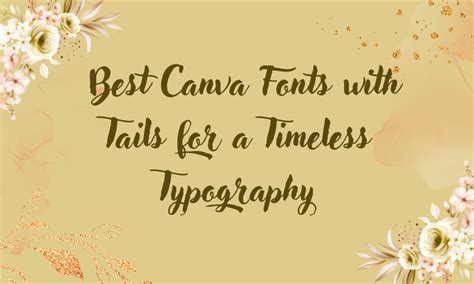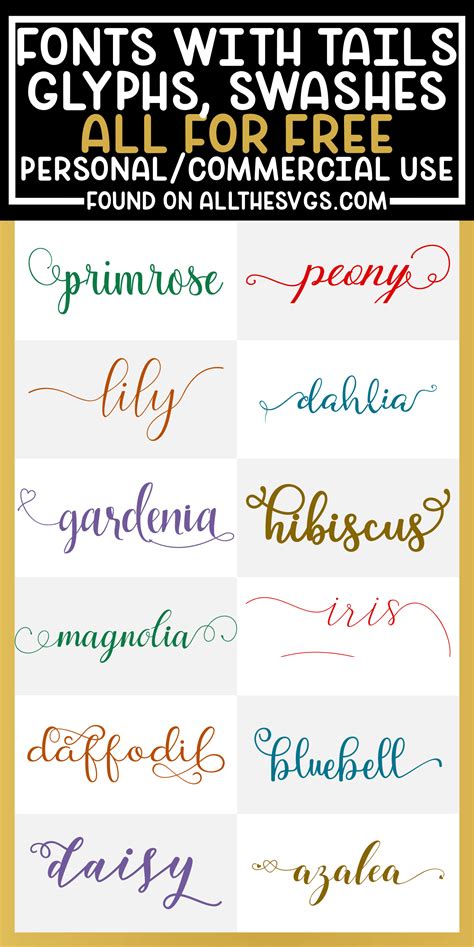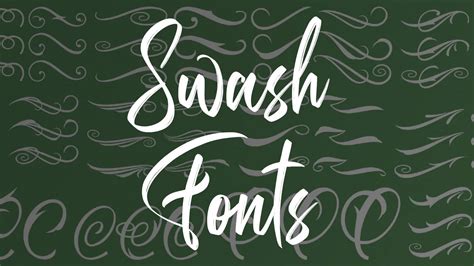
Typography is an art form that can significantly enhance the visual appeal and readability of any design project. One of the most intriguing aspects of typography is the use of fonts with tails. These fonts, characterized by their elegant and flowing strokes, add a touch of sophistication and personality to text. Whether you're designing a logo, creating a website, or crafting a print publication, understanding and utilizing fonts with tails can elevate your work to new heights.
Understanding Fonts With Tails
Fonts with tails, also known as serif fonts, are distinguished by the small lines or strokes that extend from the main strokes of the letters. These tails, or serifs, can vary in style and size, contributing to the overall aesthetic and readability of the text. Serif fonts are often associated with traditional and classic designs, evoking a sense of elegance and timelessness.
There are several types of serif fonts, each with its unique characteristics:
- Old Style Serifs: These fonts have a more traditional and classic appearance, with a slight contrast between thick and thin strokes. Examples include Garamond and Caslon.
- Transitional Serifs: These fonts have a more pronounced contrast between thick and thin strokes, making them highly readable. Examples include Times New Roman and Baskerville.
- Modern Serifs: These fonts feature a high contrast between thick and thin strokes and often have a more geometric appearance. Examples include Bodoni and Didot.
- Slab Serifs: These fonts have thick, block-like serifs and are known for their bold and impactful appearance. Examples include Rockwell and Clarendon.
The Importance of Fonts With Tails in Design
Fonts with tails play a crucial role in design for several reasons. Firstly, they enhance readability, especially in printed materials. The serifs act as guides for the eye, making it easier to follow the text from one line to the next. This is particularly important in long-form content, such as books and articles.
Secondly, serif fonts add a layer of sophistication and elegance to any design. They are often used in high-end publications, such as magazines and newspapers, to convey a sense of professionalism and refinement. Additionally, serif fonts can evoke a sense of tradition and history, making them ideal for projects that aim to convey a classic or timeless feel.
Lastly, fonts with tails can be used to create visual hierarchy and contrast in design. By pairing serif fonts with sans-serif fonts, designers can create a dynamic and engaging layout. The contrast between the two font styles can help to highlight important information and guide the reader's attention.
Choosing the Right Fonts With Tails
Selecting the right serif font for your project depends on several factors, including the overall aesthetic, the intended audience, and the medium of presentation. Here are some tips for choosing the right fonts with tails:
- Consider the Context: Think about where and how the font will be used. For example, a serif font with a high contrast between thick and thin strokes may be more suitable for print materials, while a serif font with a more uniform stroke width may be better for digital screens.
- Match the Tone: Choose a serif font that aligns with the tone and personality of your project. For instance, a classic and elegant serif font like Garamond may be ideal for a high-end fashion magazine, while a bold and impactful slab serif like Rockwell may be more suitable for a sports publication.
- Ensure Readability: Always prioritize readability, especially in long-form content. Serif fonts with a moderate contrast between thick and thin strokes and clear, well-defined serifs are generally more readable.
- Test Different Fonts: Experiment with different serif fonts to see how they look in your design. Pay attention to how the font interacts with other design elements, such as images and colors, and make adjustments as needed.
Popular Fonts With Tails
There are numerous serif fonts available, each with its unique characteristics and uses. Here are some popular fonts with tails that are widely used in design:
| Font Name | Style | Use Cases |
| Garamond | Old Style Serif | Books, magazines, high-end publications |
| Times New Roman | Transitional Serif | Academic papers, reports, newspapers |
| Bodoni | Modern Serif | Headlines, posters, display text |
| Rockwell | Slab Serif | Posters, advertisements, bold statements |
| Caslon | Old Style Serif | Books, formal documents, classic designs |
Each of these fonts has its unique charm and can be used to achieve different design goals. Experimenting with these fonts can help you find the perfect match for your project.
💡 Note: When choosing a serif font, consider the overall design aesthetic and the intended audience. A font that works well for one project may not be suitable for another.
Using Fonts With Tails in Digital Design